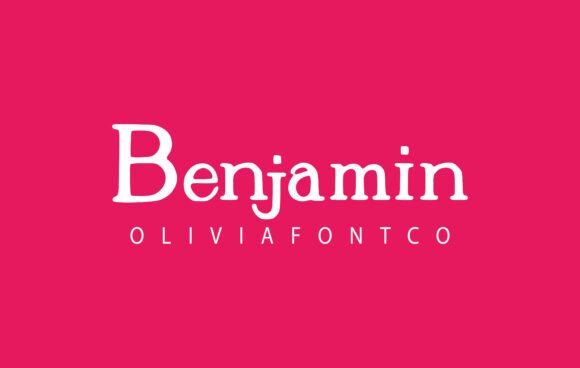
The Benjamin Font: A Romantic Touch for Your Creative Projects
I’ll never forget the design struggle I faced while working on a wedding invitation project. My client wanted a font that was elegant, yet playful; romantic, yet legible. I scoured the internet, tried countless fonts, but nothing seemed to fit the bill. That was until I stumbled upon the Benjamin font. With its authentic handwritten style and romantic touch, it was love at first sight! In this article, I’ll share my experience with the Benjamin font, its features, and how to make the most of it in your creative projects.
- ✨ The Benjamin font is incredibly legible, making it perfect for both title and body text.
- ✅ Its handwritten style adds a touch of warmth and personality to any design.
- 💕 The font’s romantic vibe makes it ideal for wedding invitations, Valentine’s Day cards, and other love-themed projects.
- 🎨 Its versatility allows it to be used in a wide range of designs, from magazine headlines to social media graphics.
While the Benjamin font is exceptional, there are a few minor things to keep in mind:
- 🤔 Some users might find the font’s handwritten style too casual for certain projects.
- ⚠️ As with any font, it’s essential to test it in different contexts to ensure it works well with your design.
- Experiment with OpenType features, such as ligatures and stylistic alternates, to add visual interest to your text.
The Story Behind the Benjamin Font
The Benjamin font was designed with the intention of creating a unique, handwritten font that captures the essence of romance and elegance. Inspired by classic calligraphy and modern handwriting, the font’s creator aimed to produce a versatile typeface suitable for a wide range of creative projects.
| What makes the Benjamin font unique? | The Benjamin font’s authentic handwritten style, romantic touch, and exceptional legibility make it stand out. |
| Is the Benjamin font suitable for body text? | Yes, the font is legible and works well for both title and body text. |